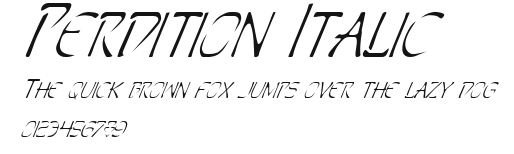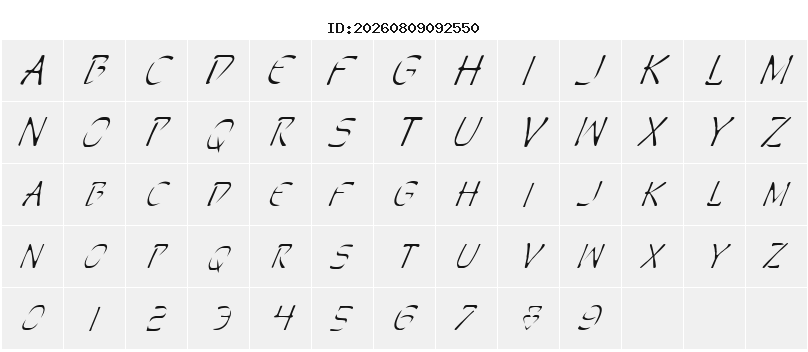
• Font Name: Perdition Italic
• Full Font Name: Perdition Italic
About Perdition Italic.ttf
Perdition Italic.ttf is a modern, elegant sans-serif font designed for ultimate readability and visual harmony. Perfect for branding, headlines, web design, and print materials.